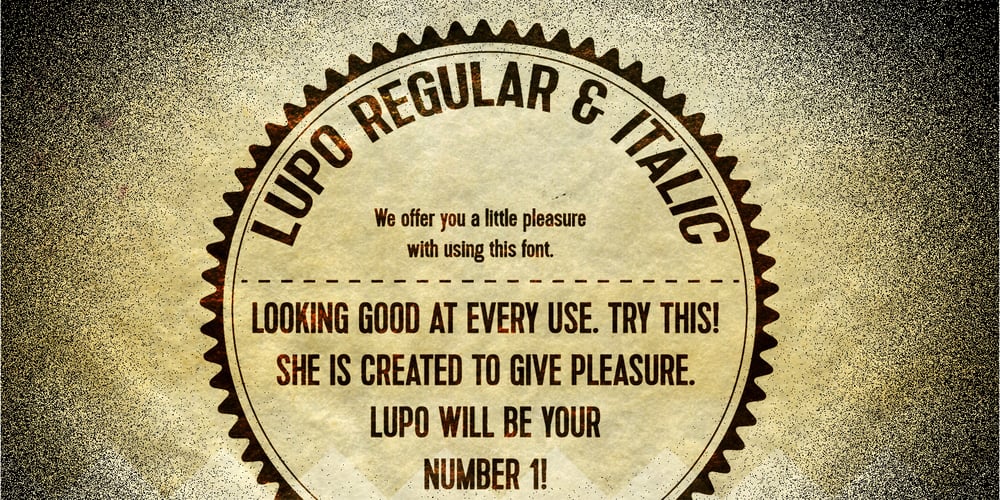
Lupo
Lupo font
Lupo Font Family was designed by published by Typoforge Studio. Lupo contains 2 styles and family package options. Font Lupo is the younger brother of Kapra. However, unlike Kapra it is characterized by the sharpness of the finish. It is inspired by a You And Me Monthly published by National Magazines Publisher RSW „Prasa” that appeared from Mai 1960 till December 1973 in Poland. Font Lupo is designed in one version – lower and uppercase characters.